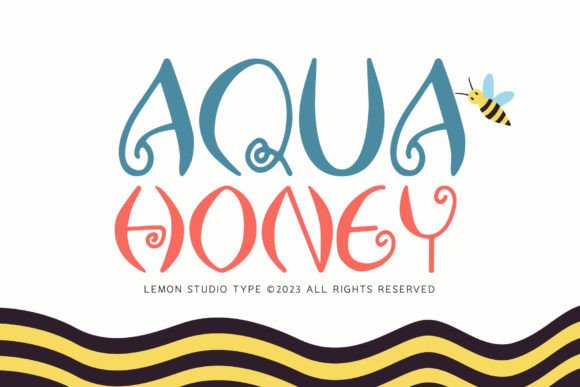
Aqua Honey Font: The Sweetest Addition to Your Design Projects
Aqua Honey Font is a delightful and charming display font that has captured the hearts of designers and artists alike. Its unique, fancy curved shapes make it an ideal choice for a wide range of creative projects, from children’s book covers to clothing, stickers, and more. In this article, we’ll dive into the world of Aqua Honey Font, exploring its features, uses, and benefits, as well as provide tips on how to make the most of this beautiful font.
What Makes Aqua Honey Font So Special?
Aqua Honey Font is a one-of-a-kind display font that boasts a range of distinctive features. Some of its key characteristics include:
- Fancy Curved Shapes: The font’s curved shapes give it a playful, whimsical feel that’s perfect for designs that require a touch of sweetness.
- Cute and Charming: Aqua Honey Font is designed to be adorable and captivating, making it an excellent choice for projects aimed at children or young audiences.
- Highly Versatile: This font can be used for a wide range of applications, from digital designs to print materials, and even merchandise.
Creative Ways to Use Aqua Honey Font
Aqua Honey Font is an incredibly versatile font that can be used in various creative projects. Here are some ideas to get you started:
- Children’s Book Covers: The font’s playful, whimsical feel makes it an excellent choice for children’s book covers, adding a touch of magic and wonder to your design.
- Clothing and Apparel: Aqua Honey Font is perfect for designing cute and charming clothing, such as t-shirts, hoodies, and onesies.
- Stickers and Labels: The font’s curved shapes and playful feel make it ideal for stickers, labels, and other small design elements.
- Digital Designs: Use Aqua Honey Font to add a touch of sweetness to your digital designs, such as social media graphics, blog headers, and more.
The Benefits of Using Aqua Honey Font
Aqua Honey Font offers a range of benefits that make it an attractive choice for designers and artists. Some of the key advantages of using this font include:
- Unique and Eye-Catching: The font’s distinctive curved shapes and playful feel make it stand out from more traditional fonts, adding a touch of personality to your designs.
- Easy to Read: Despite its fancy curves, Aqua Honey Font is surprisingly easy to read, making it suitable for use in a wide range of applications.
- Customizable: The font can be easily customized to fit your design needs, allowing you to experiment with different colors, sizes, and styles.
Tips for Getting the Most Out of Aqua Honey Font
To make the most of Aqua Honey Font, here are some design tips to keep in mind:
- Experiment with Colors: The font’s playful feel lends itself well to bright, bold colors. Don’t be afraid to experiment with different color schemes to find the perfect match for your design.
- Play with Size and Style: Aqua Honey Font can be used in a range of sizes and styles, from small and delicate to large and bold. Experiment with different sizes and styles to find the perfect fit for your design.
- Combine with Other Fonts: Aqua Honey Font pairs well with a range of other fonts. Try combining it with a sans-serif font for a fun and playful look, or with a script font for a more elegant feel.
Pairing Aqua Honey Font with Other Fonts
Aqua Honey Font can be paired with a range of other fonts to create unique and visually appealing designs. Here are some font pairing suggestions:
- Open Sans: The clean, modern feel of Open Sans pairs perfectly with the playful curves of Aqua Honey Font.
- Lato: The elegant, cursive feel of Lato complements the whimsical curves of Aqua Honey Font, creating a beautiful and sophisticated design.
- Great Vibes: The fun, playful feel of Great Vibes pairs perfectly with Aqua Honey Font, creating a design that’s perfect for kids’ projects or other youthful applications.
Aqua Honey Font is a charming and versatile display font that’s perfect for a wide range of creative projects. Its unique curved shapes, cute and charming feel, and high level of customizability make it an excellent choice for designers and artists looking to add a touch of sweetness to their designs. Whether you’re working on a children’s book cover, clothing, stickers, or digital designs, Aqua Honey Font is sure to delight.